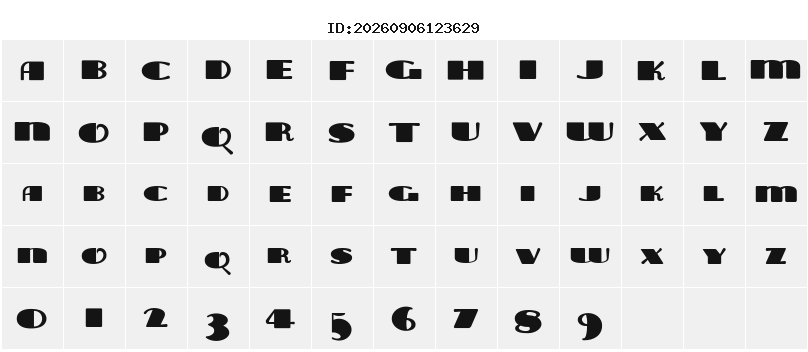
• Font Name: Tara Bulbous NF
• Font ID: Nick'sFonts: Tara Bulbous NF: 2006
• Full Font Name: Tara Bulbous NF
• Designer: Nick Curtis
• Manufacturer: Nick's Fonts
About Tara Bulbous NF.ttf
Tara Bulbous NF.ttf is a modern, elegant sans-serif font designed for ultimate readability and visual harmony. Perfect for branding, headlines, web design, and print materials.